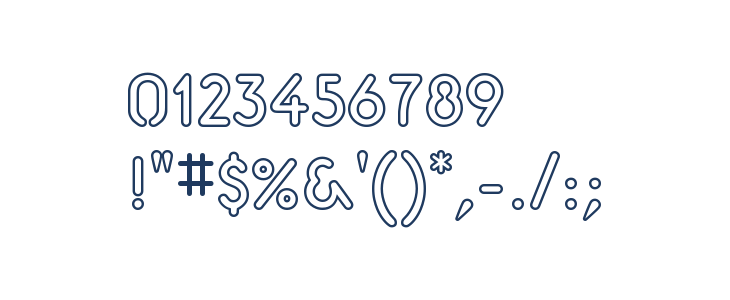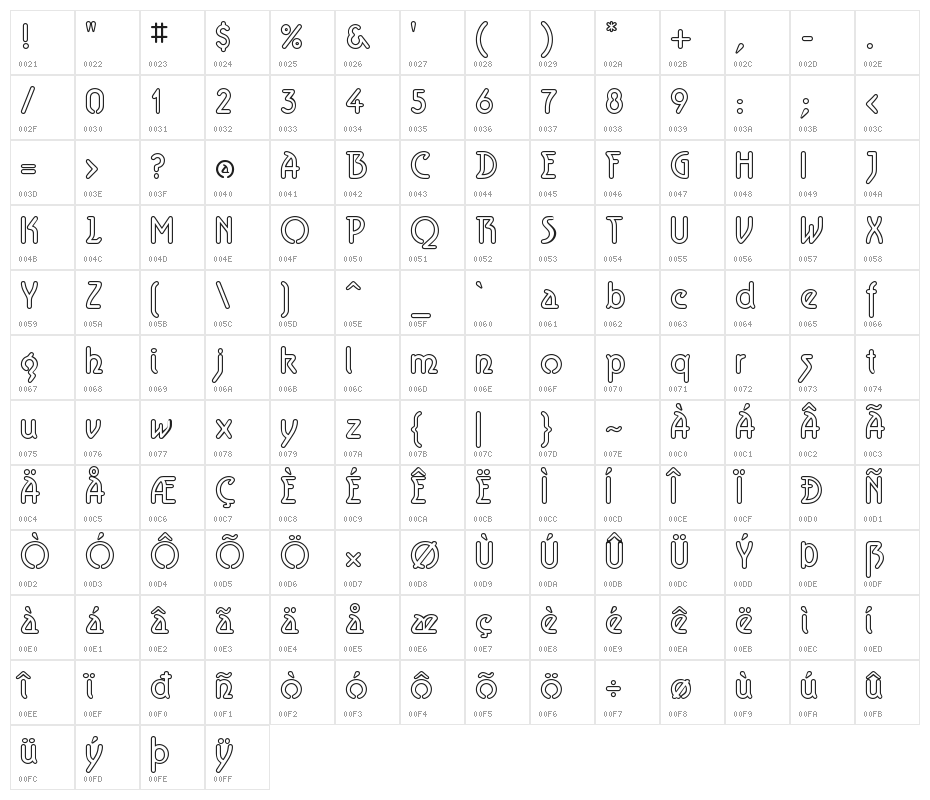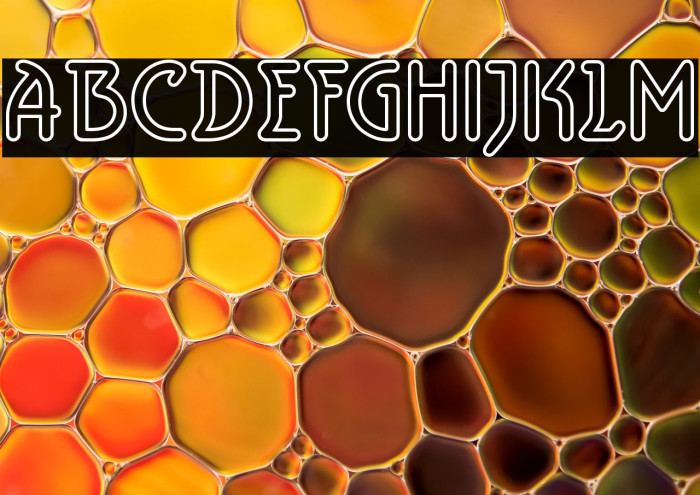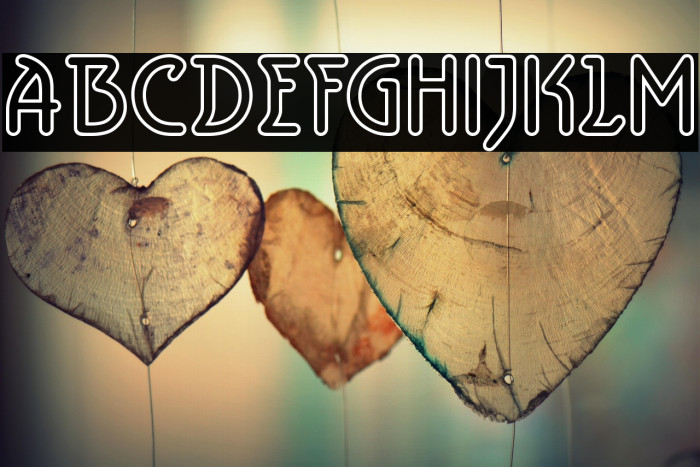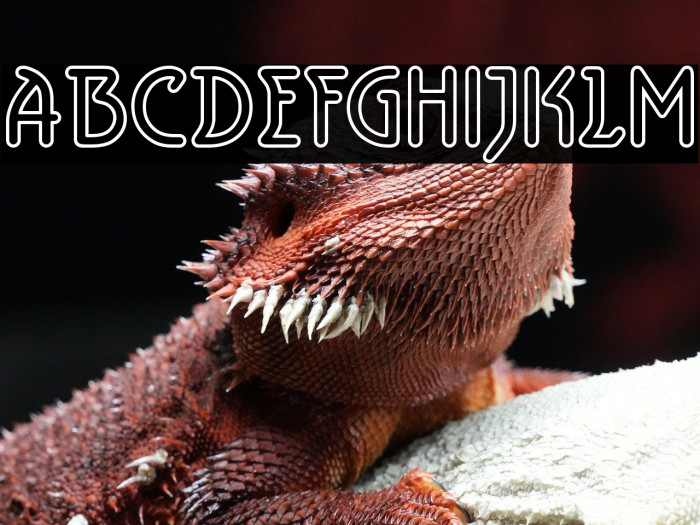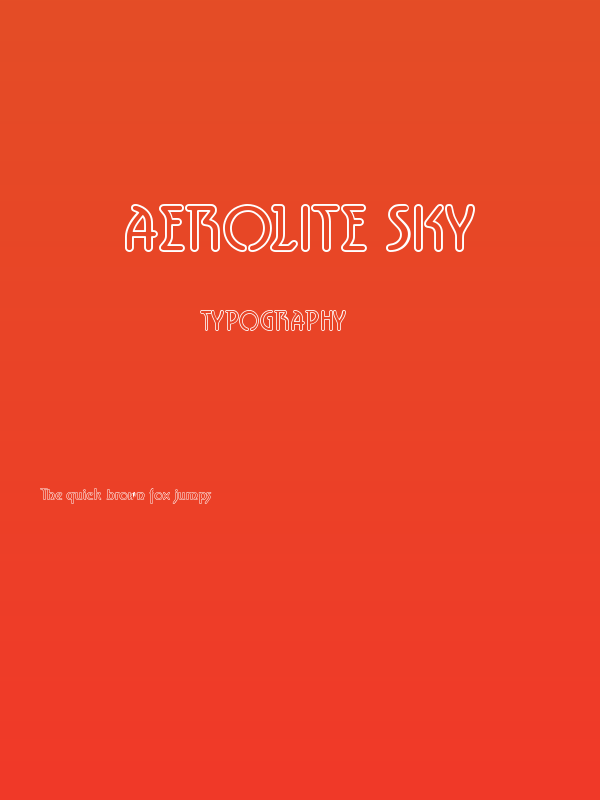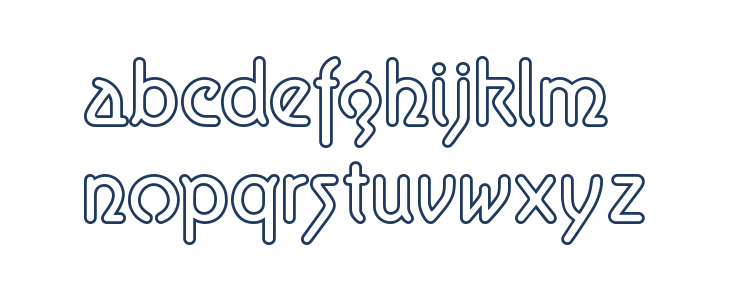
Aerolite Sky Font
Aerolite Sky Description
This font features a unique, futuristic design with hollow, outlined characters that create a sense of depth and dimension. The uppercase and lowercase letters maintain a consistent style, with rounded edges and a geometric structure. The numbers and special characters are designed to match the overall aesthetic, providing a cohesive look. The font's open, airy feel makes it stand out, while its clean lines ensure readability. It's ideal for projects that require a modern, tech-inspired appearance.